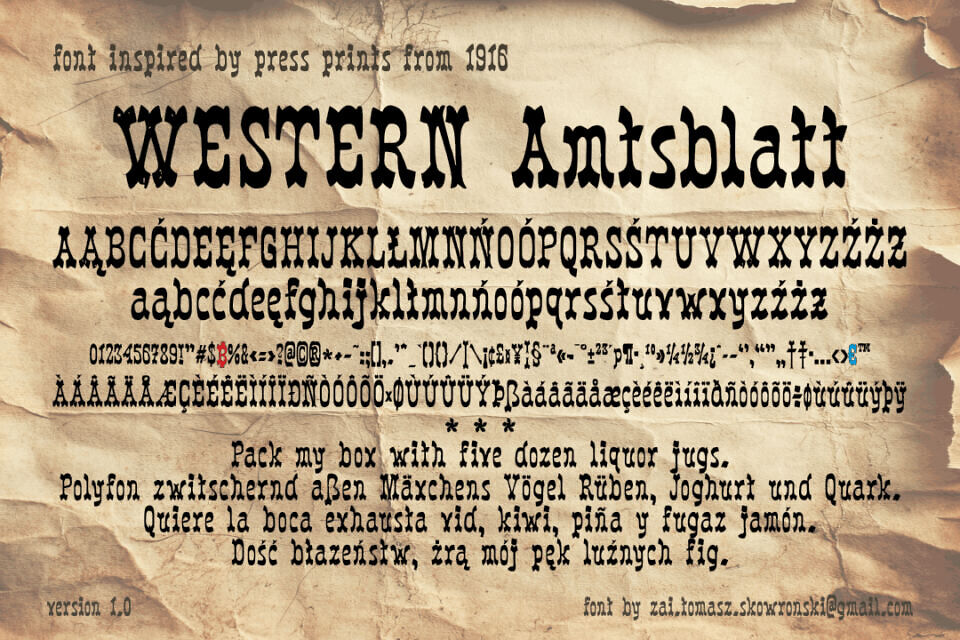
Discover the bold Western Amtsblatt display font, inspired by 1916 press prints. Its distinctive, rough edges and serifs evoke an authentic vintage Western aesthetic, perfect for posters, headlines, and branding.
Featuring a complete character set with German and extended Latin glyphs, this typeface delivers a powerful, historic, and rugged look. Ideal for designers seeking a unique Old West style.